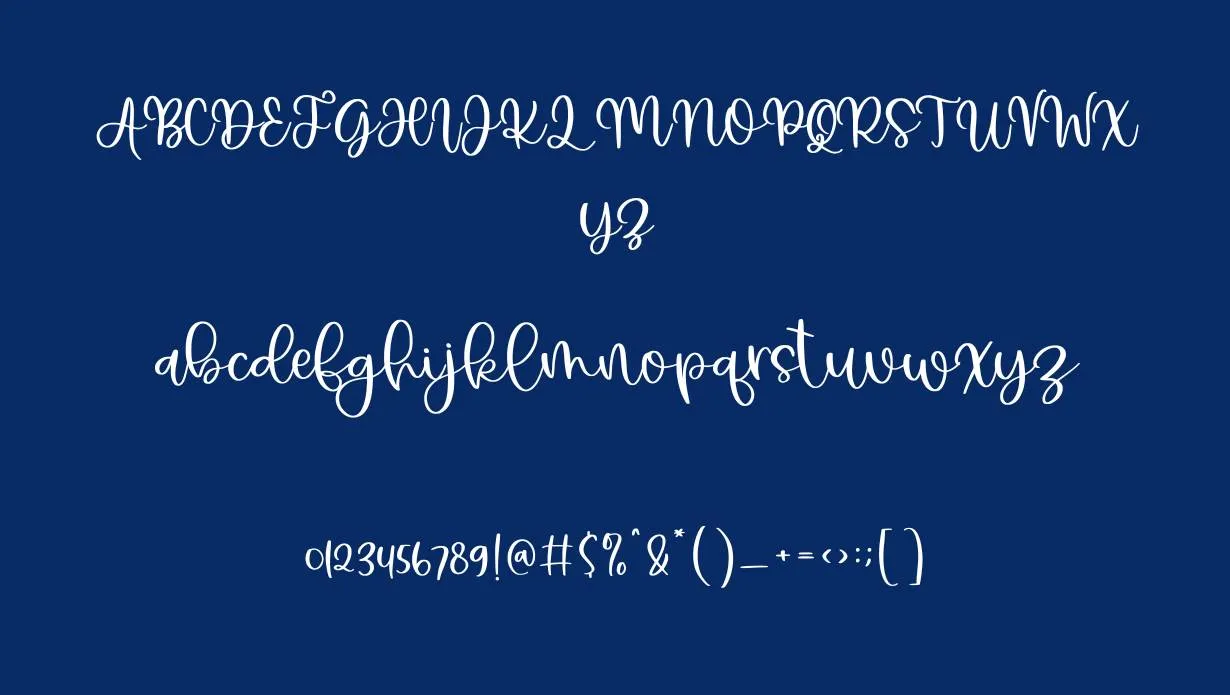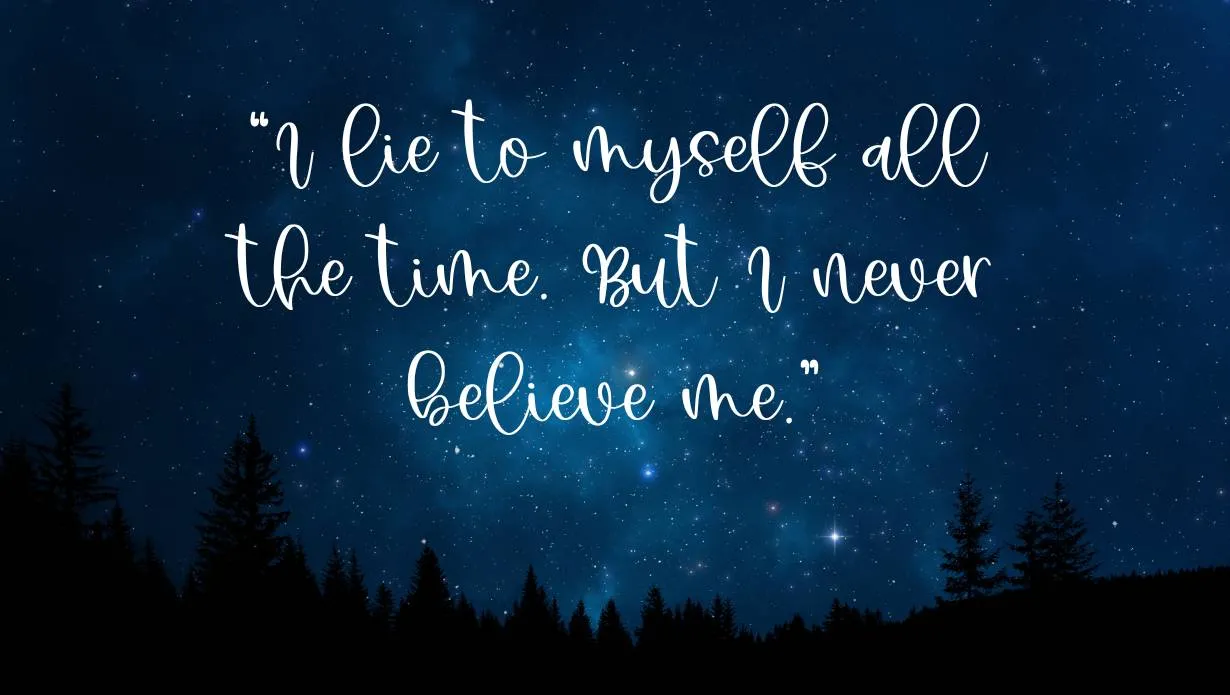
Lightshot Font Free Download
Lightshot Font is a famous texture due to its stylish characters. This stunning typeface was constructed by Arendxstudio. You can download this font in Open-type and True-type formats. It is available in single regular weight.
You can pair this amazing typeface with continua font to give a unique touch to your project. The high readability of characters is suitable for both print and digital media projects.
Lightshot Font Info
| Name | Lightshot Font |
| Designer | Arendxstudio |
| Style | Handwritten |